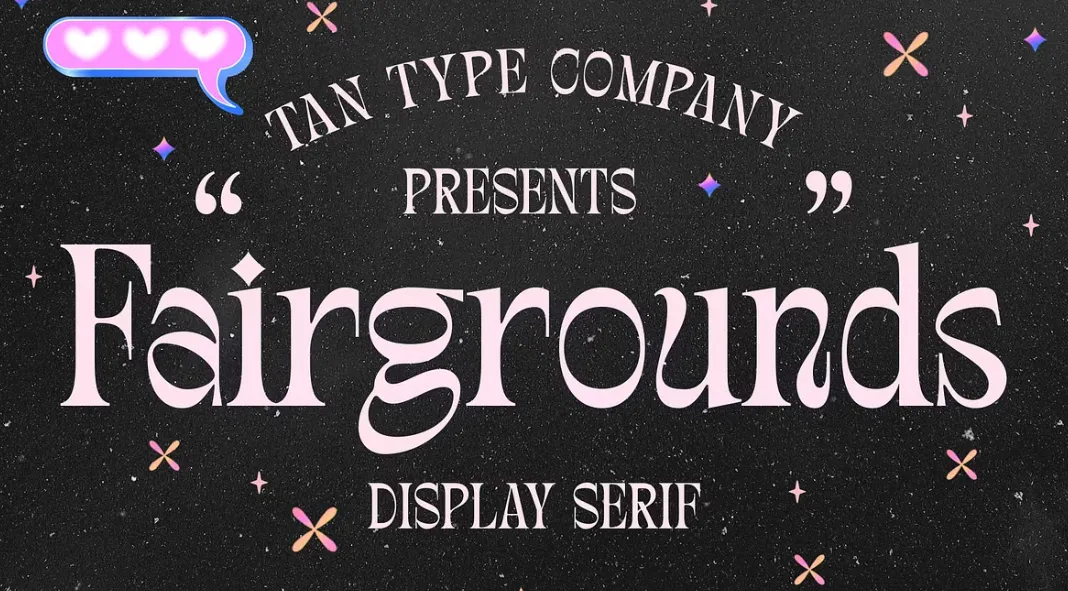
TAN Fairgrounds Font by TanType: A Joyful Twist on Classic Serif
Say hello to TAN Fairgrounds, another beautiful creation from the innovative designers at TanType. This font is a delightful twist on the classic serif, seamlessly blending traditional elegance with a playful spirit. If you’re looking to infuse your design projects with a touch of fun and sophistication, TAN Fairgrounds is your perfect companion.
TAN Fairgrounds font by TanType
A Whimsical Evolution of Tradition
TAN Fairgrounds takes the familiar structure of a classic serif font and injects it with a dose of personality. The result is a typeface that feels both timeless and contemporary. The subtle curves and unexpected flourishes breathe new life into the traditional serif, making it ideal for a wide range of design applications.
Versatility in Every Letter
One of the standout features of TAN Fairgrounds is its incredible versatility. Whether you’re working on branding, packaging, editorial design, or social media graphics, this font adapts effortlessly. Its playful nature adds a unique charm to logos and headlines, while its legibility ensures it works beautifully in body text.
Designing with Fun and Functionality
The beauty of TAN Fairgrounds lies in its balance of fun and functionality. The quirky details and lively curves add a sense of joy to your designs, but never at the expense of readability. This makes it a fantastic choice for projects that require both style and substance.
Perfect for Modern Creatives
For modern creatives seeking to stand out, TAN Fairgrounds offers a refreshing departure from the ordinary. It brings a sense of individuality to your work, ensuring that your designs are memorable and engaging. The font’s playful elegance is particularly well-suited for fashion, lifestyle, and creative industries where distinctiveness is key.
The TAN Fairgrounds font is a celebration of creativity and tradition. It invites designers to explore the playful side of classic serif fonts, offering endless possibilities for innovative design. If you’re ready to add a touch of whimsy to your projects, TAN Fairgrounds is the font you’ve been waiting for. Embrace the fun and watch your designs come to life with TanType’s latest masterpiece.